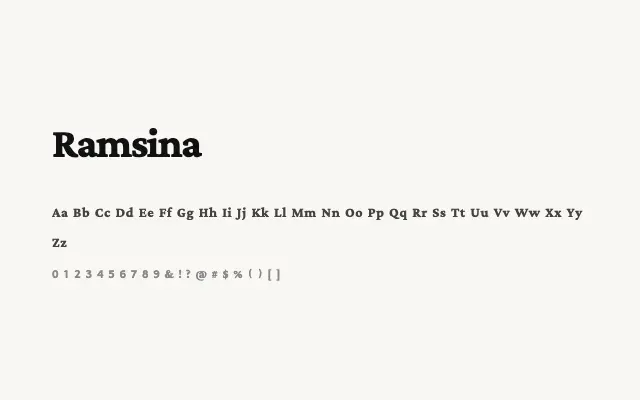
A specialised serif addressing the underserved Syriac script alongside Latin, filling a genuine gap in multilingual type provision.
Ramsina serves communities requiring typographic support for Syriac, one of the most historically significant yet typographically neglected scripts. The Latin component is a competent, unassuming serif that pairs without friction. Its primary value is linguistic and cultural coverage rather than aesthetic novelty, making it essential for academic, religious, and heritage publishing projects.
A serif typeface designed to support the Syriac script alongside Latin, a combination rarely addressed in open-source type. The design balances traditional calligraphic roots of Syriac with a complementary Latin serif.